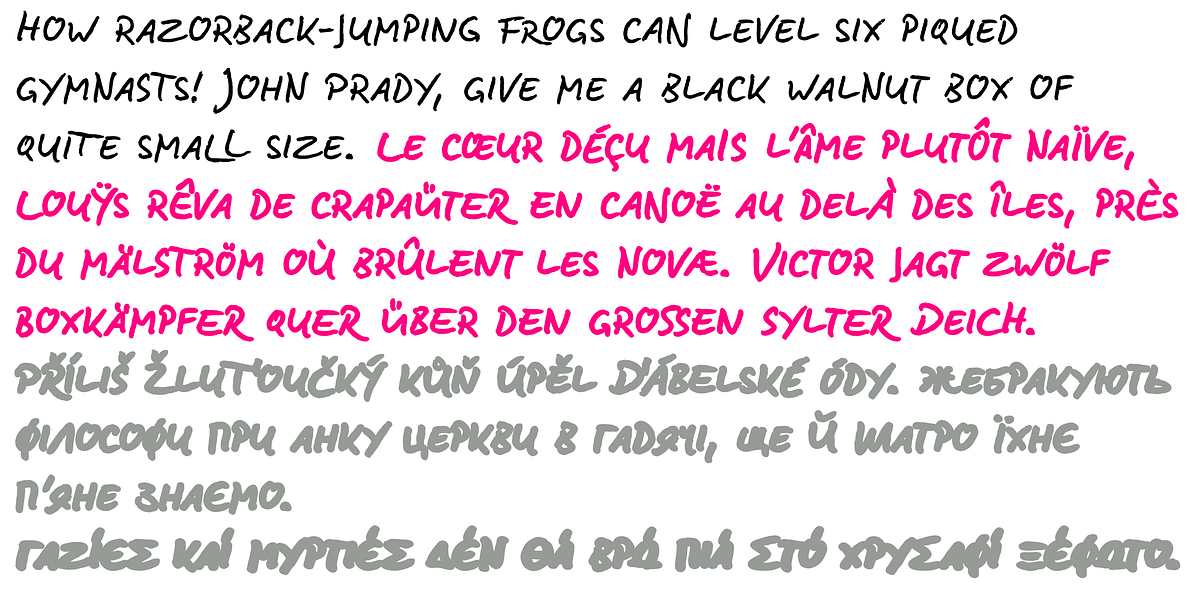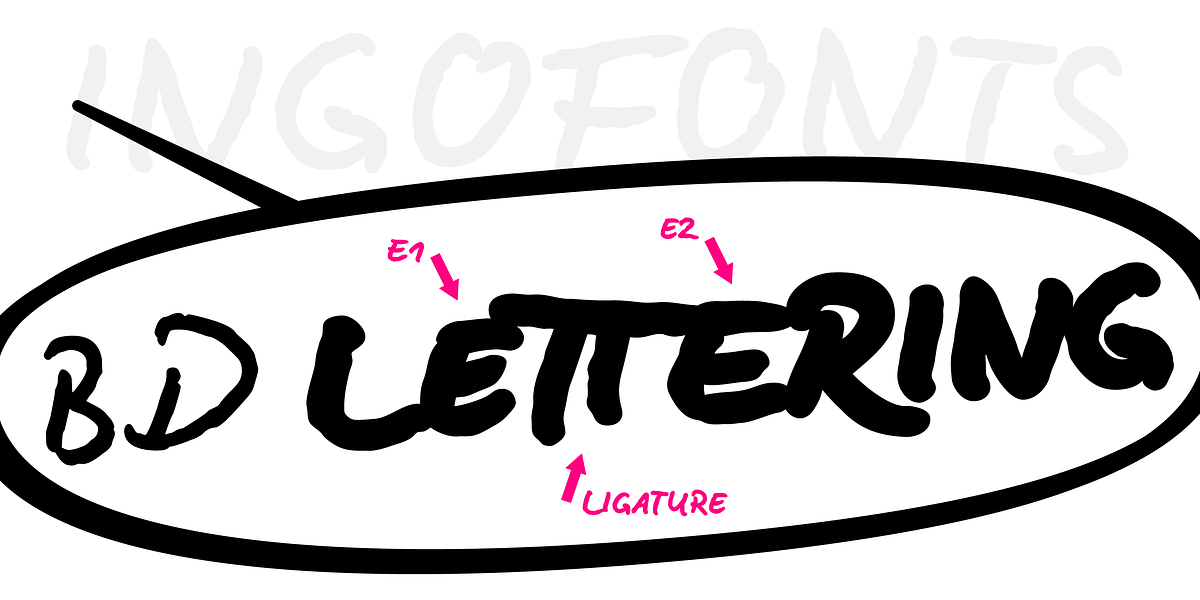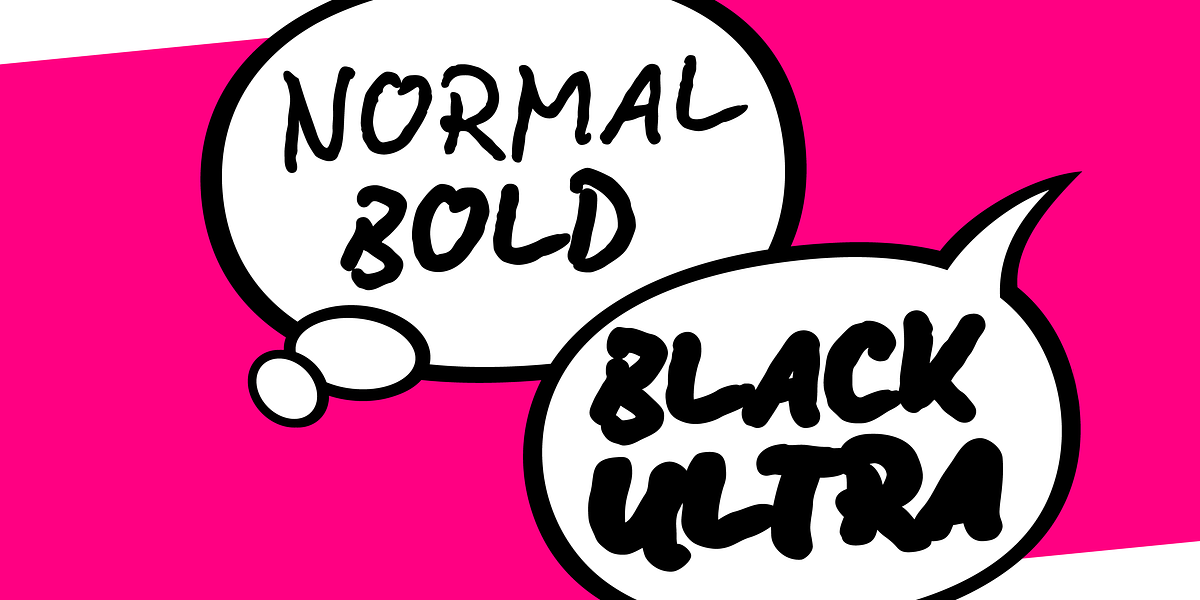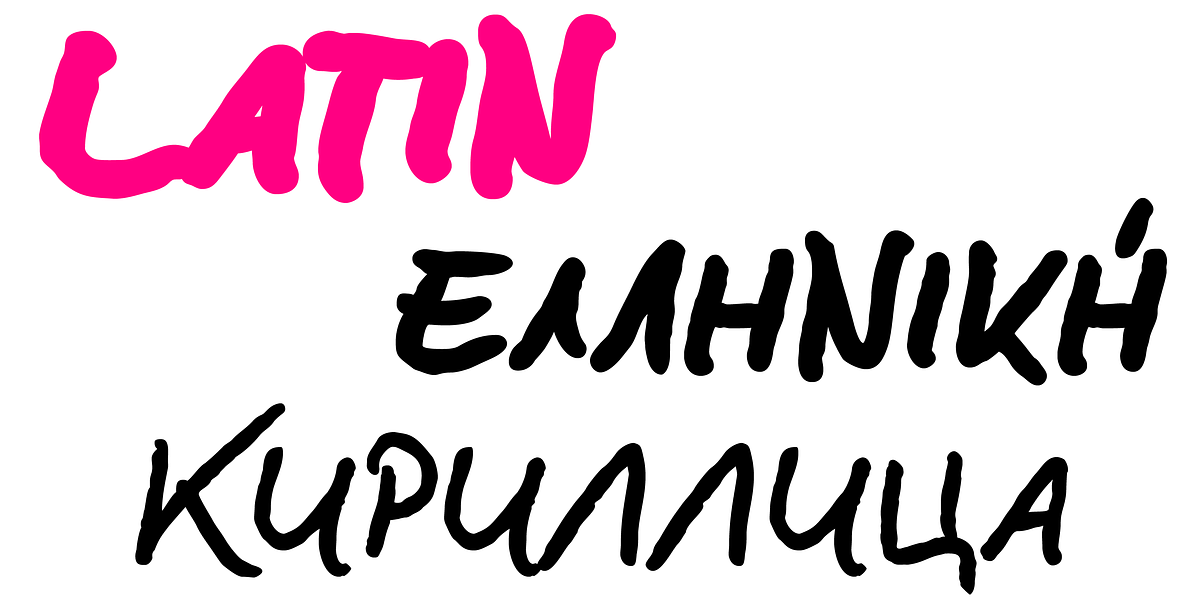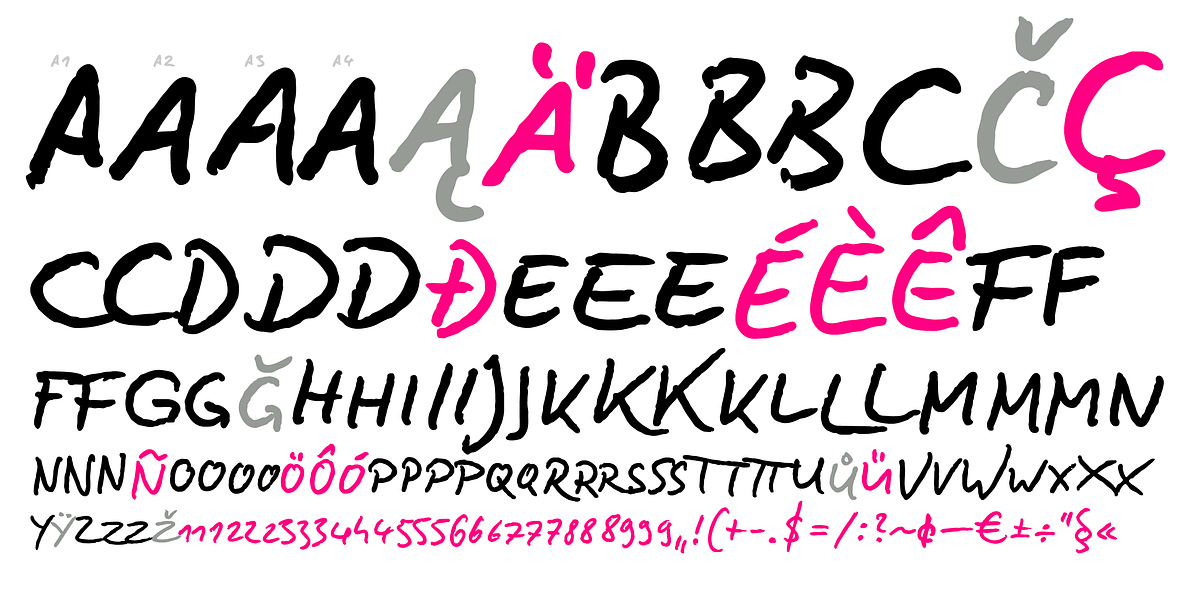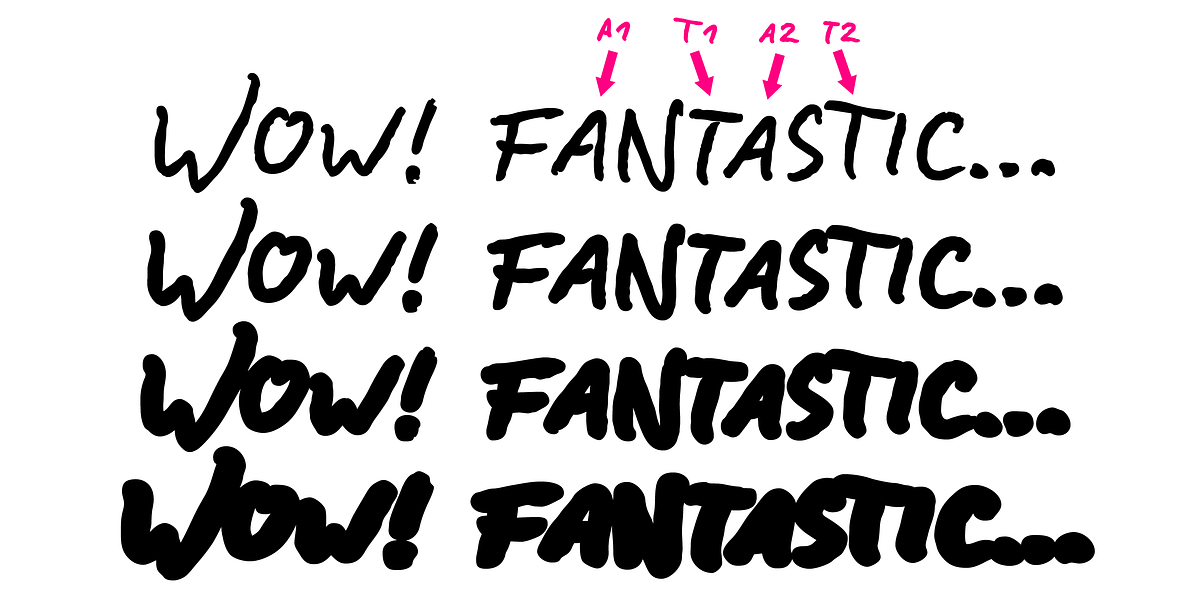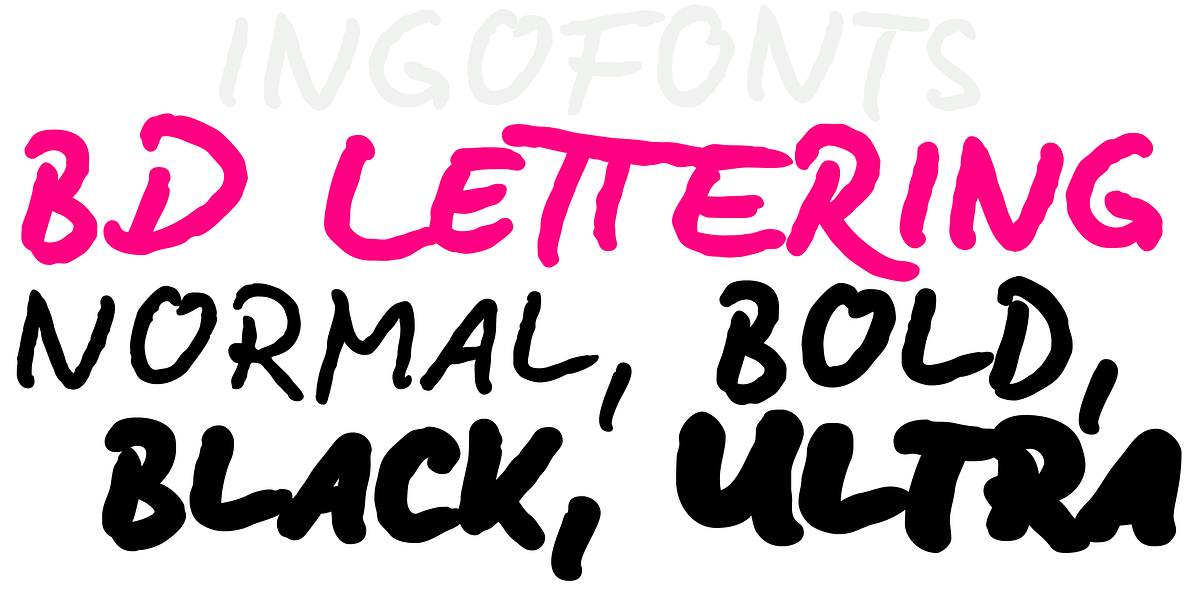
BD Lettering Pro
BD Lettering is a display font designed to mimic genuine handwriting. It achieves this through clearly visible irregularities in letter shapes and the inclusion of alternative character forms. These alternatives are automatically applied when the OpenType 'Ligatures' feature is activated, ensuring no identical double letters or numerals. The font's name pays tribute to Belgian and French comics, known as 'bande dessinée'.